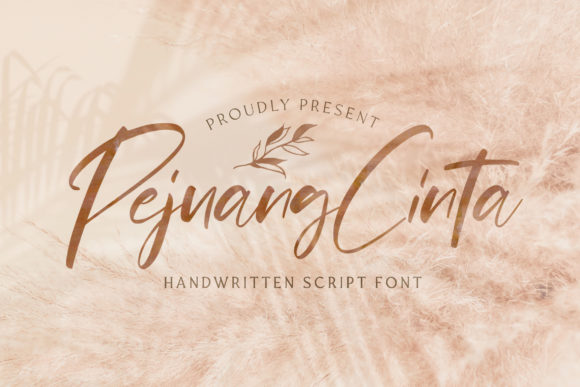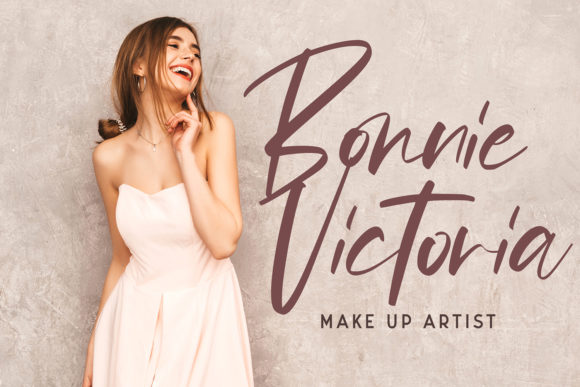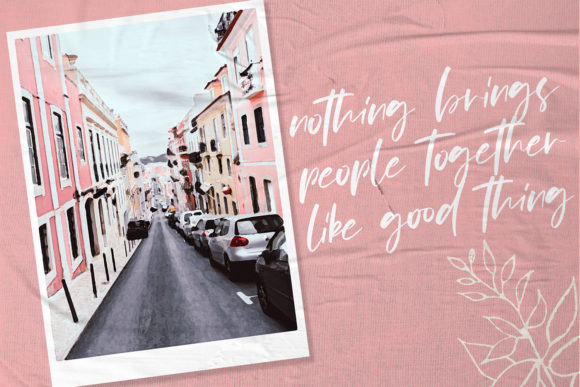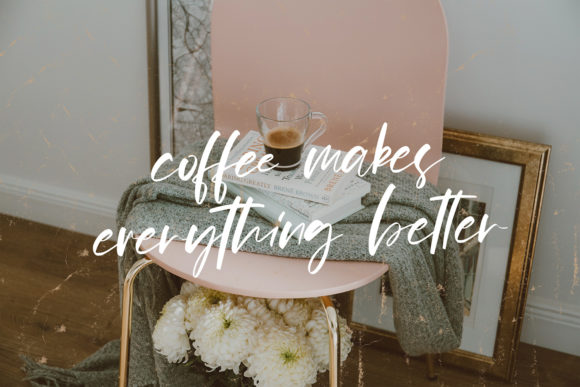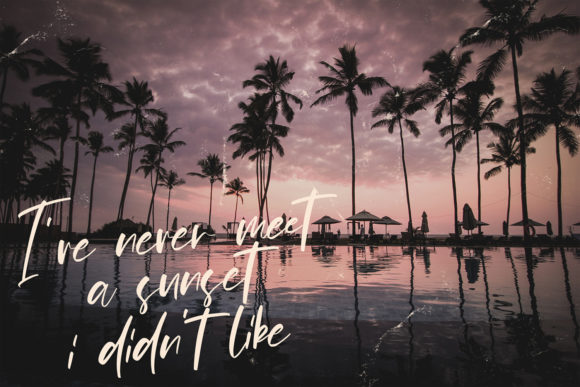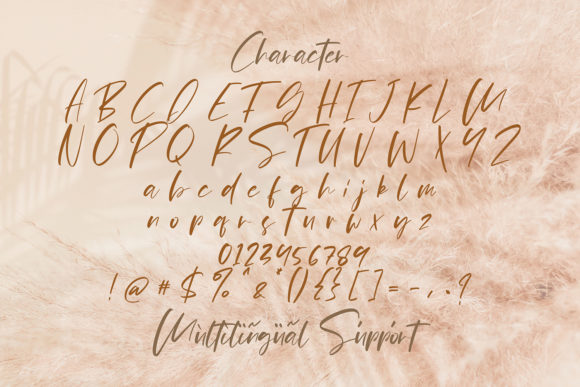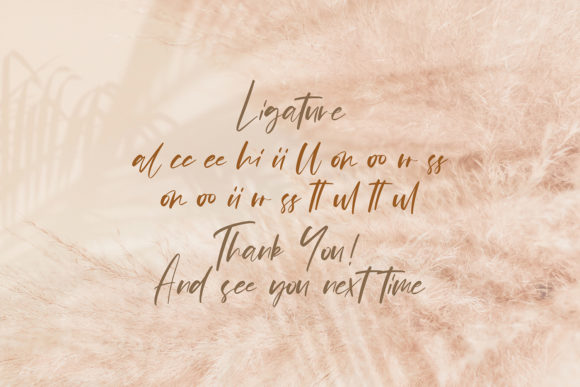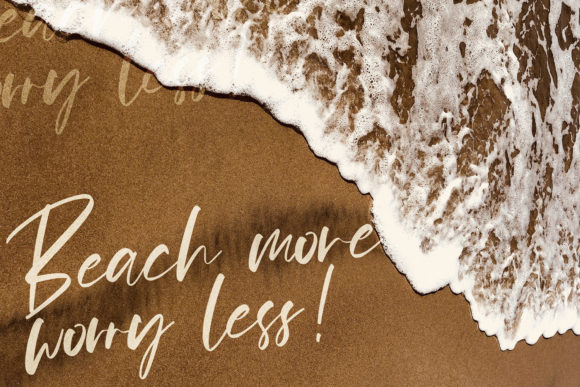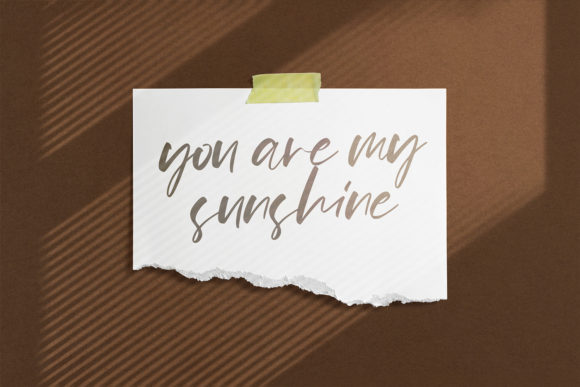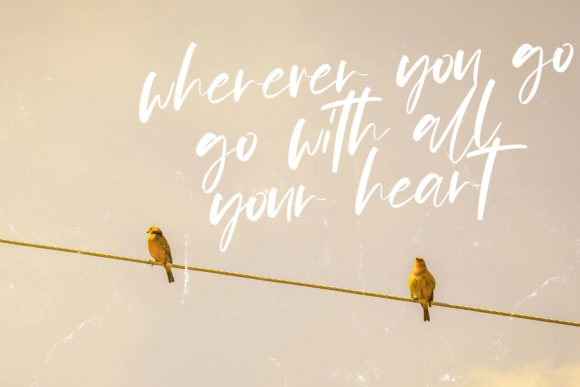
Pejuang Cinta Font
Pejuang Cinta is an incredibly relaxed and flowing handwritten font. Its casual charm makes this font incredibly versatile and down-to-earth, fitting a wide pool of contexts, both formal and non-formal.